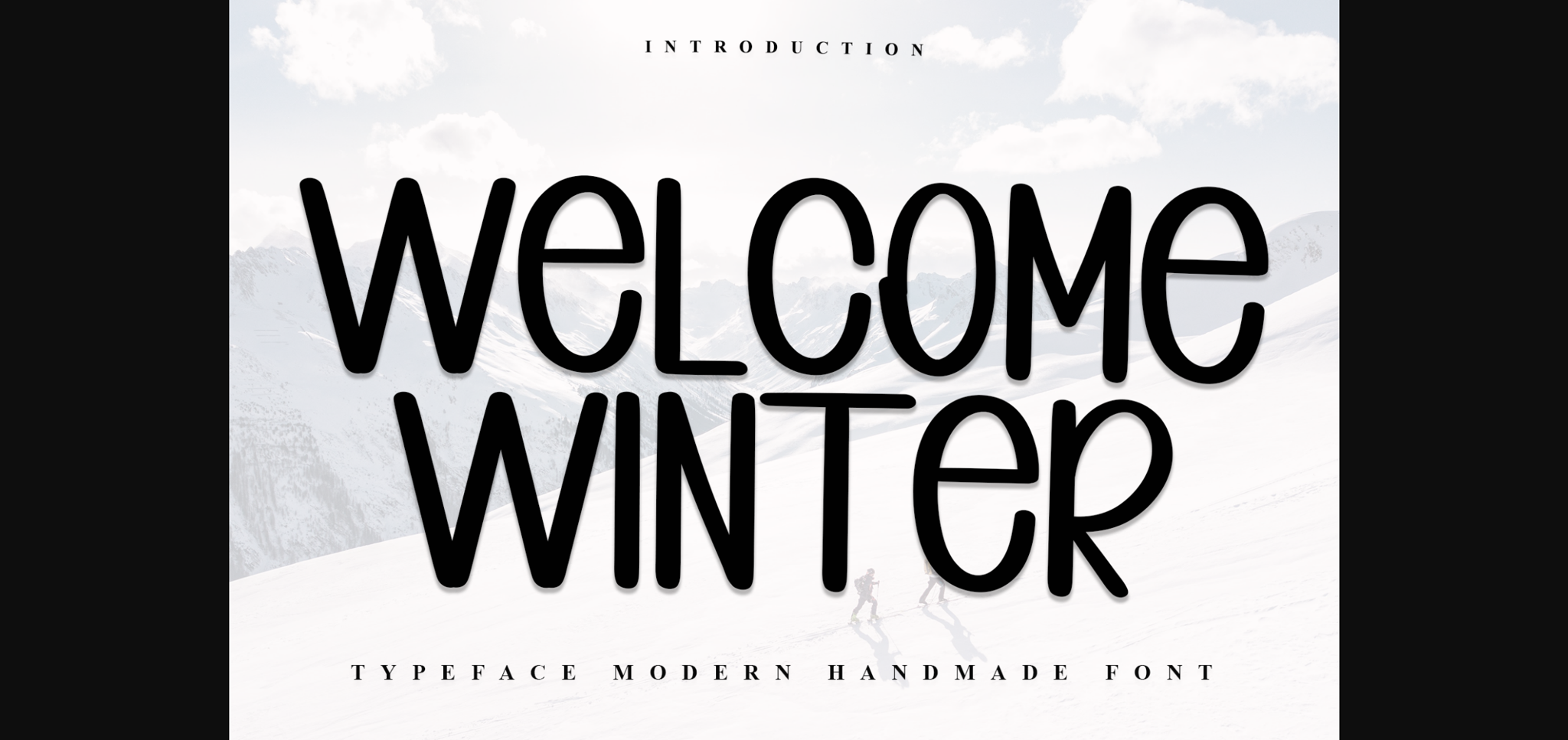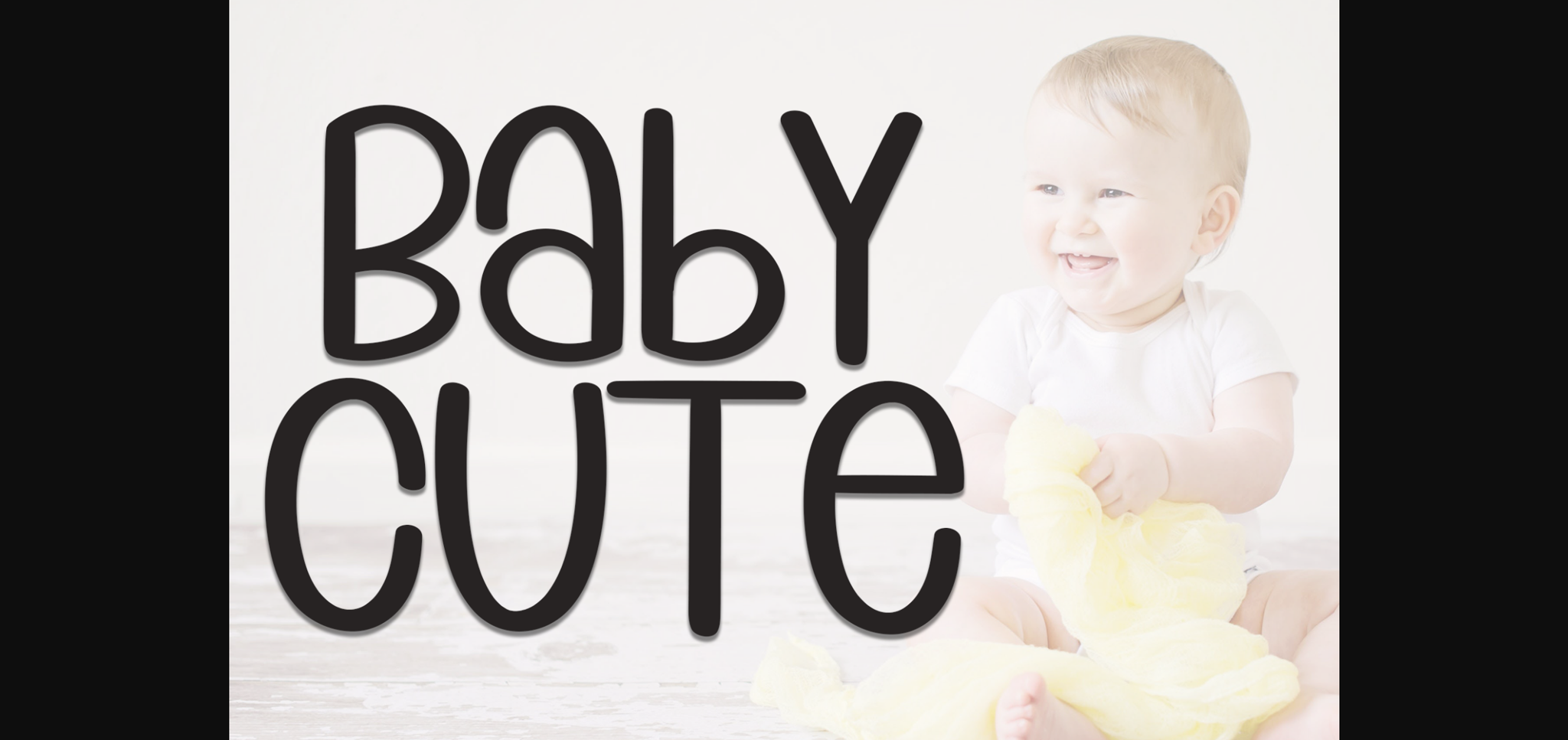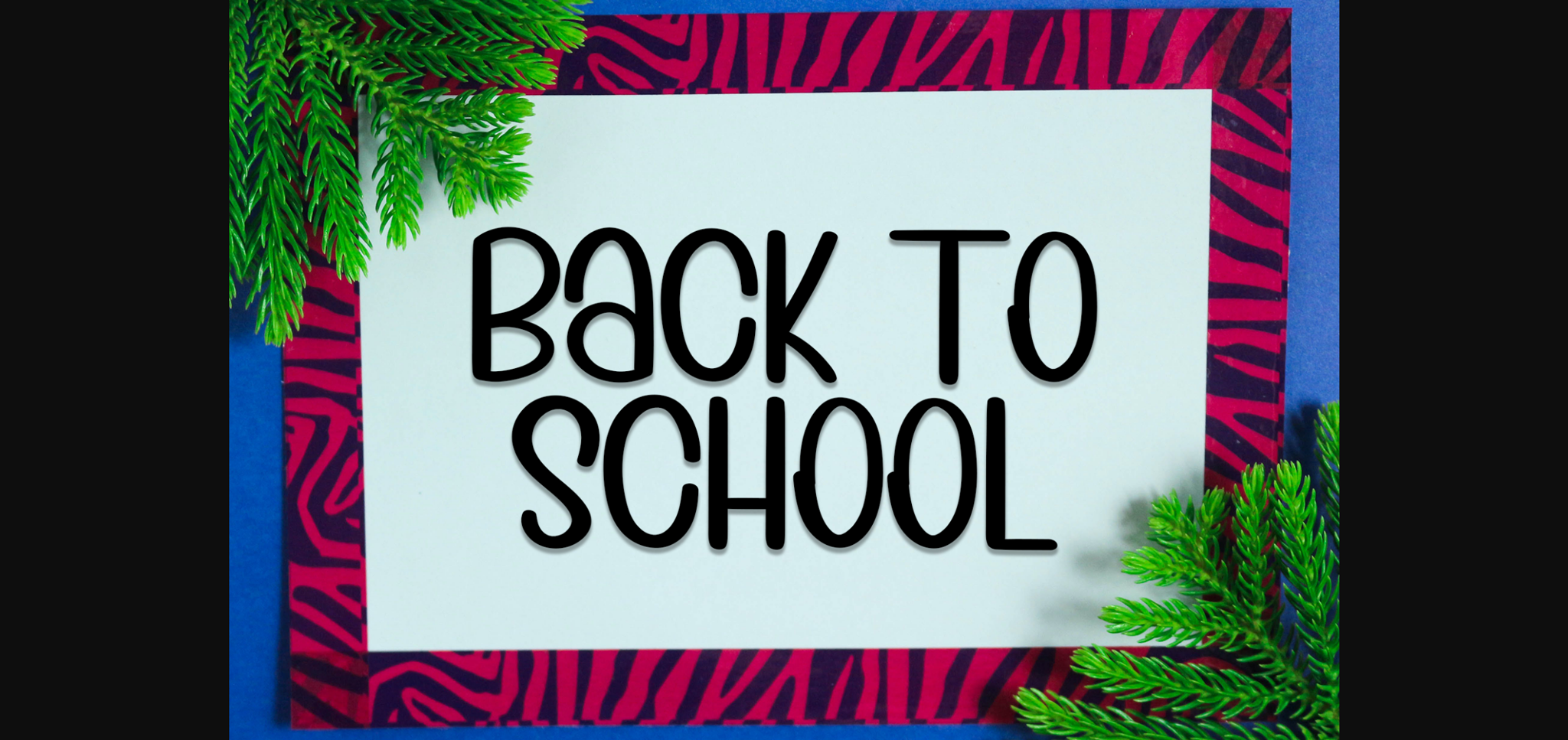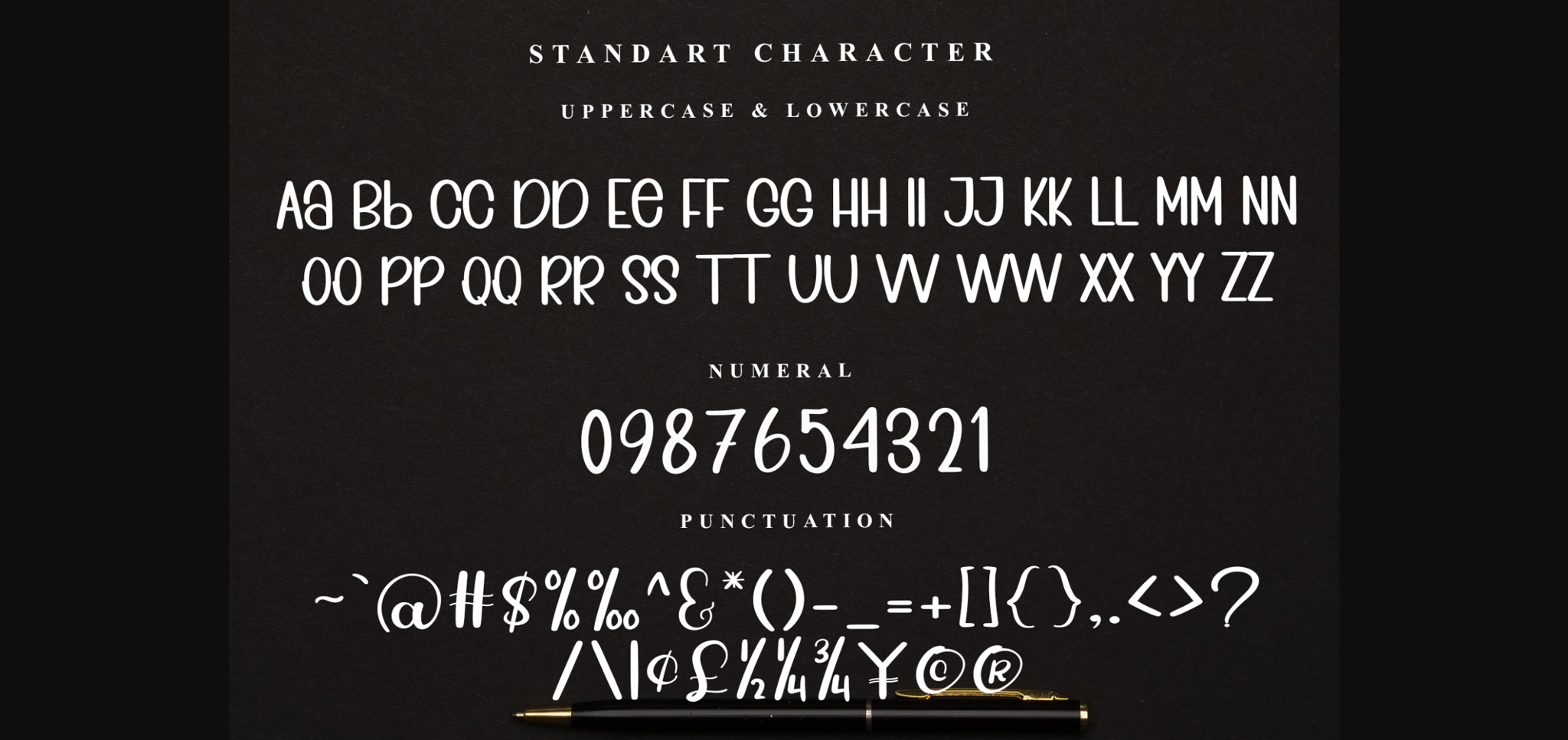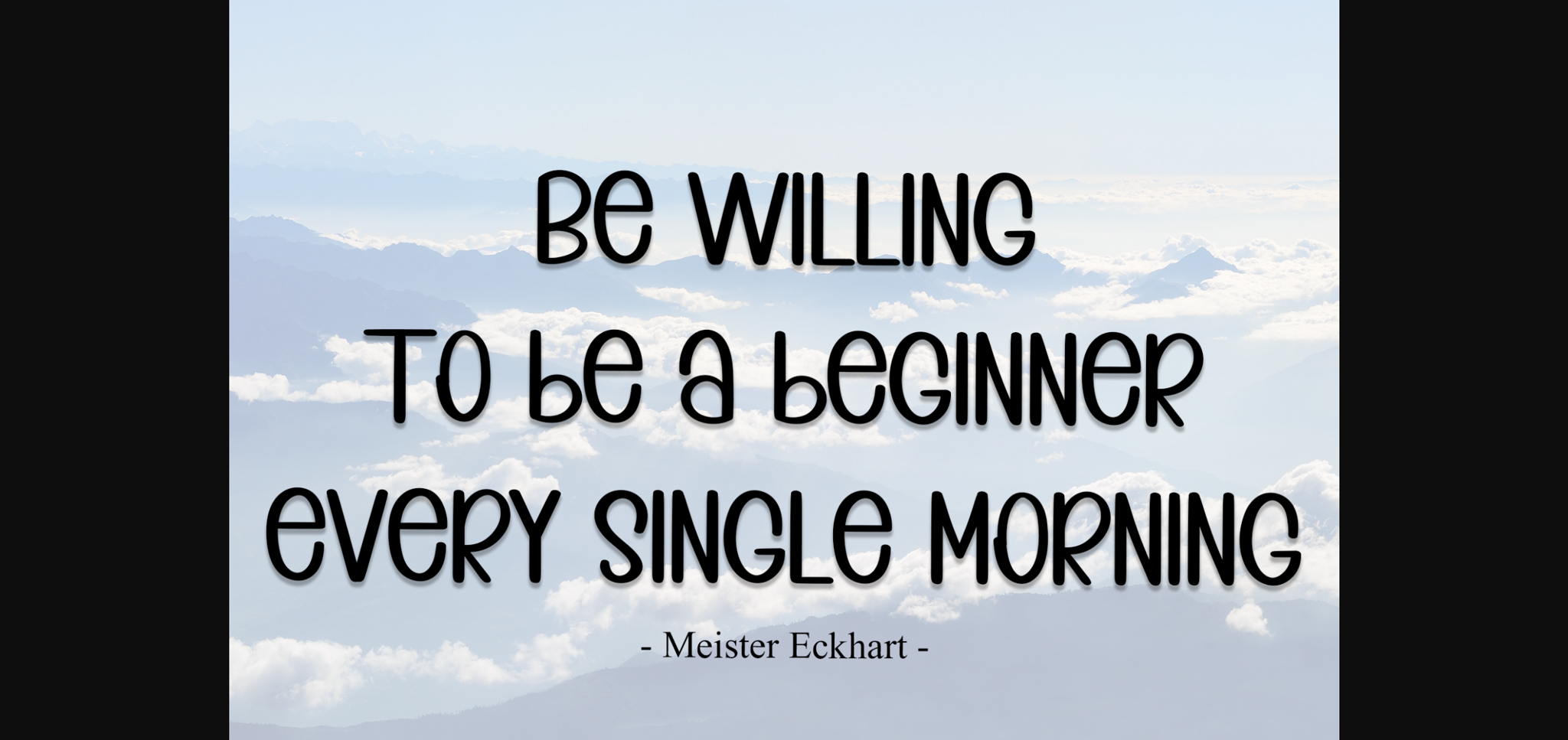
Welcome Winter Font
About Welcome Winter Font
Welcome Winter is a neat and casual sans-serif font that combines simplicity with a touch of warmth. With clean lines and balanced proportions, it exudes a friendly and approachable vibe. Perfect for various design projects, Welcome Winter brings a modern and versatile style to your typography repertoire.